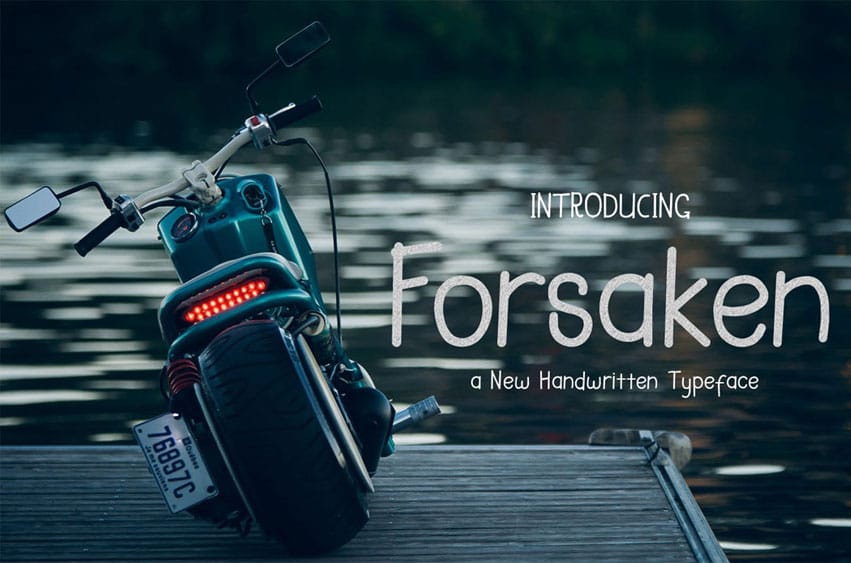
Forsaken Display Font is a simple, sans serif handwritten typeface. Its simplicity and minimalism makes it perfect and versatile for many different design projects.
This font looks great in friendly designs, but is versatile enough to look at home in your most rustic and imposing creative projects.